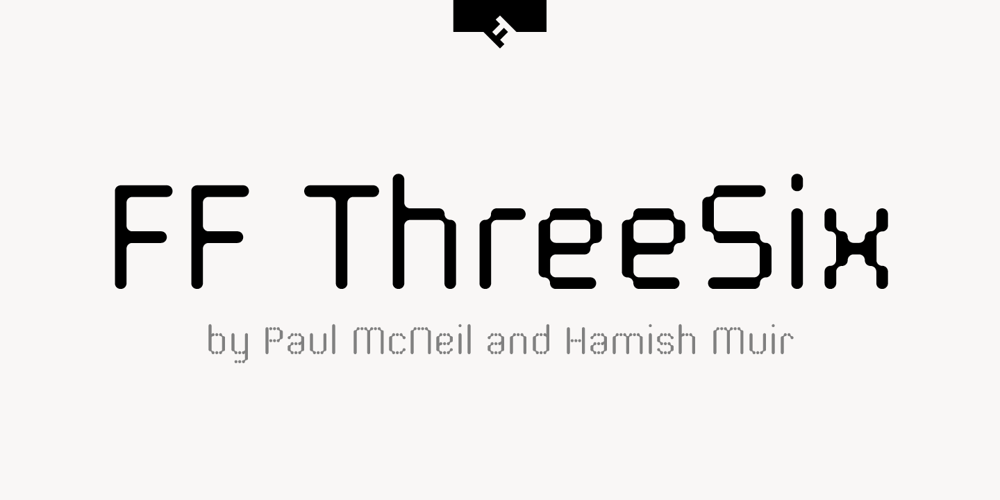
FF ThreeSix Font Family was designed by Hamish Muir, Paul McNeil and published by FontFont. FF ThreeSix contains 52 styles and family package options. British type designers Paul McNeil and Hamish Muir created this display FontFont in 2012. The family has 52 weights, ranging from 018 Thin to 144 Black and is ideally suited for logo, branding and creative industries, music and nightlife as well as poster and billboards. FF ThreeSix provides advanced typographical support with features such as ligatures. It comes with tabular lining and proportional lining figures. FF ThreeSix received several awards: the ISTD Premier award in 2011 and the ISTD Certificate of Excellence award in 2011. The typeface was also selected as one of Typographica’s favorite typefaces of 2012.